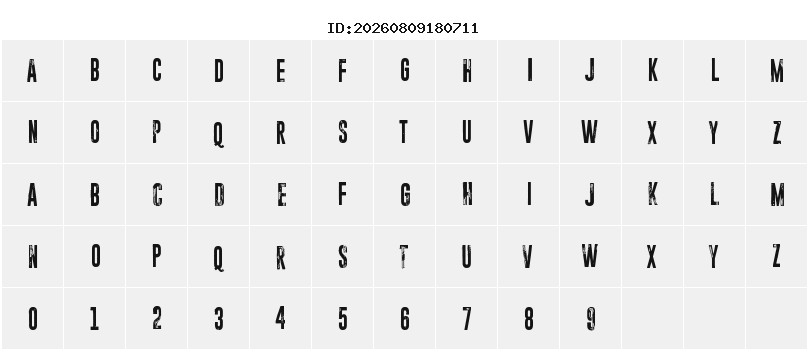
• Font Name: Paranoid Orange
About Paranoid Orange.ttf
Paranoid Orange.ttf is a modern, elegant sans-serif font designed for ultimate readability and visual harmony. Perfect for branding, headlines, web design, and print materials.